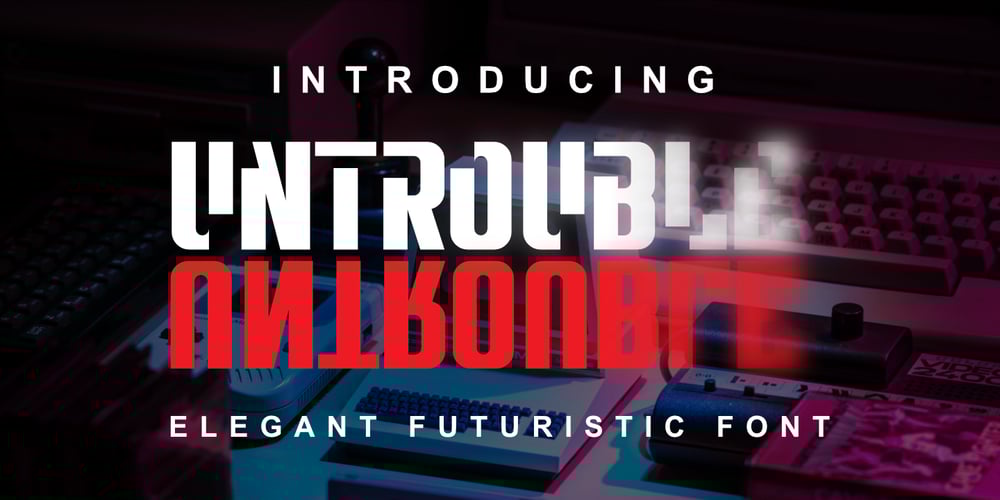
Untrouble
Untrouble font
Untrouble Font Family was designed by Toni Dzulham and published by Dumadi. Untrouble contains 1 styles and family package options. Untrouble – Elegant Futuristic Font is a powerful font that is here to answer design problems. with the presence of this font will maximize the project to the point of perfection.Untrouble is perfect for design, esports, logos, social media, branding, advertising, product design, handwritten quotes, product packaging, headers, posters, merchandise, and other designs.What’s Included :+ Standard glyphs+ UPERCASE+ Web Font+ Multilingual Accent+ Works on PC & Mac, Simple installationsAccessible in Adobe Illustrator, Adobe Photoshop, Adobe InDesign, even work on Microsoft Word. PUA Encoded Characters – Fully accessible without additional design software. Fonts include multilingual support+ Image used: All photographs/pictures/vectors used in the preview are not included, they are intended for illustration purposes only.Thanks